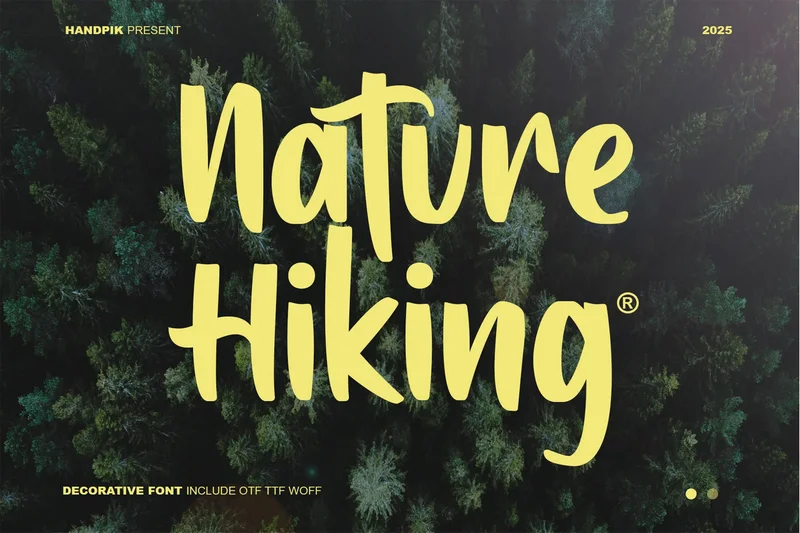
Nature Hiking
Nature Hiking will perfect for many project: book, magazines, logo, branding, photography, quotes, blog header, poster, advertisements, etc.